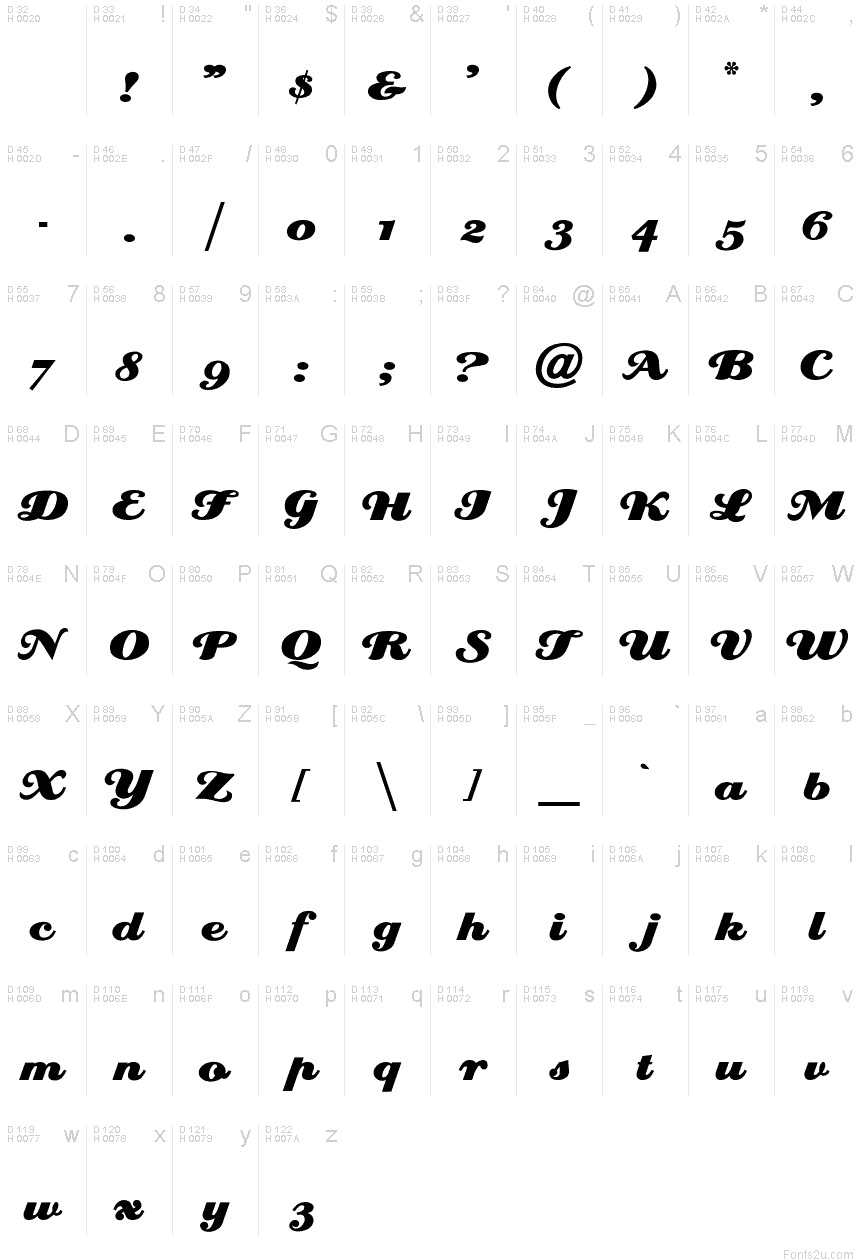
Creampuff
Creampuff font by Nick Curtis is a free retro script typeface with the swagger of a vintage storefront sign and the gloss of hand-painted lettering. Its thick, inky strokes and smooth, slanted rhythm feel like they were brushed in one confident motion, giving logos and headlines a bold, appetizing presence. The rounded forms stay friendly and legible, while the tight connections between letters create a continuous, flowing wordshape that grabs attention in an instant.
Using Creampuff, this free font shines on bakery and café branding, nostalgic packaging, posters, menus, event invitations, and retro-themed social graphics. It carries a strong sense of motion, so short phrases and names feel punchy and alive, especially at larger sizes. Pair this script with a clean, unobtrusive sans serif for supporting text, letting Creampuff handle the hero moments in your layout.